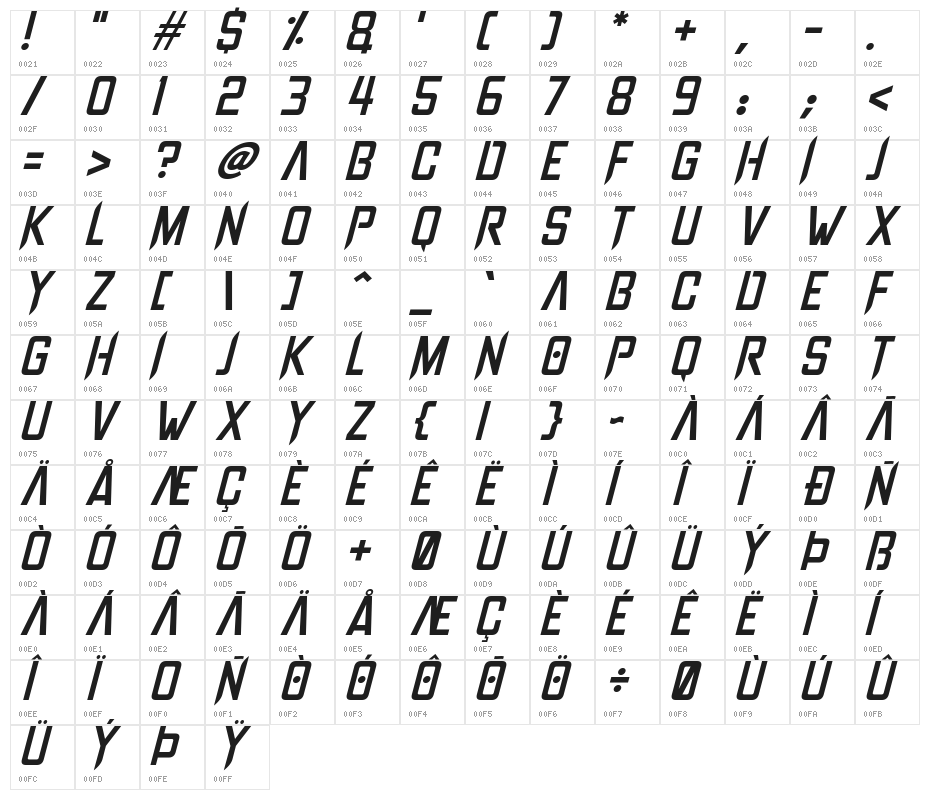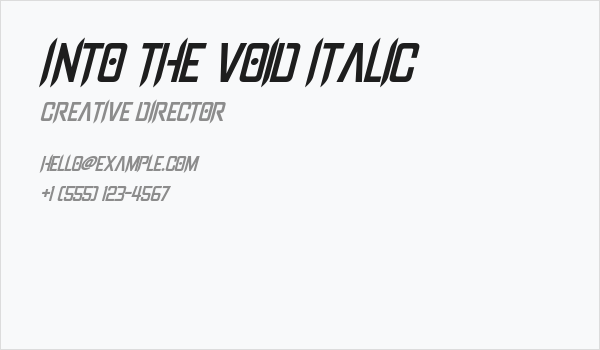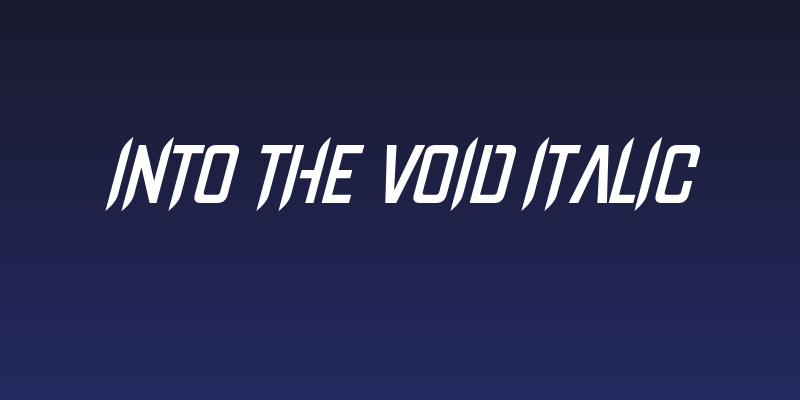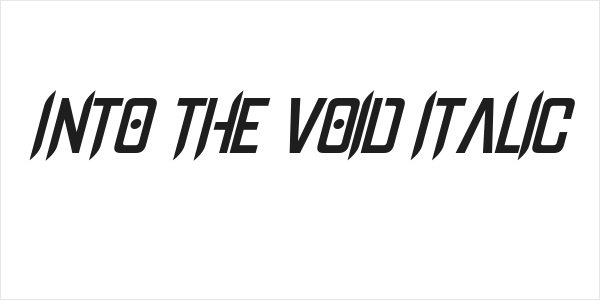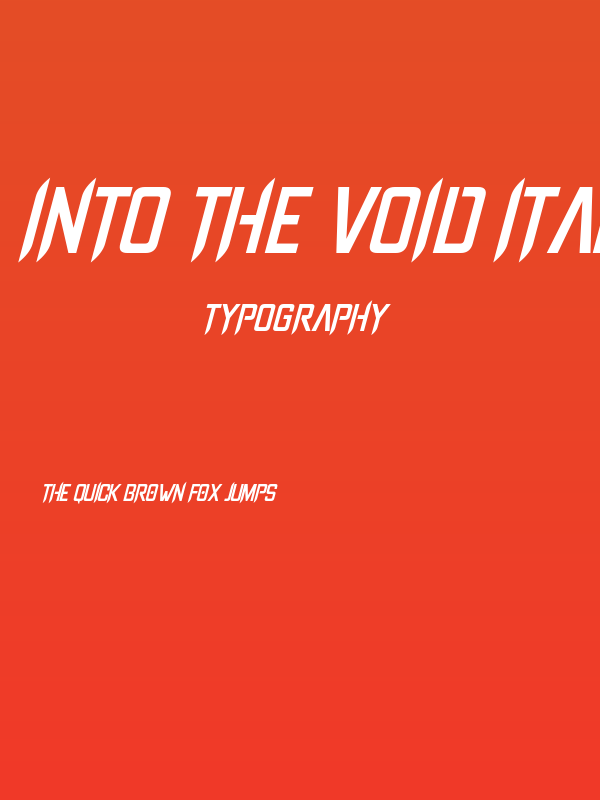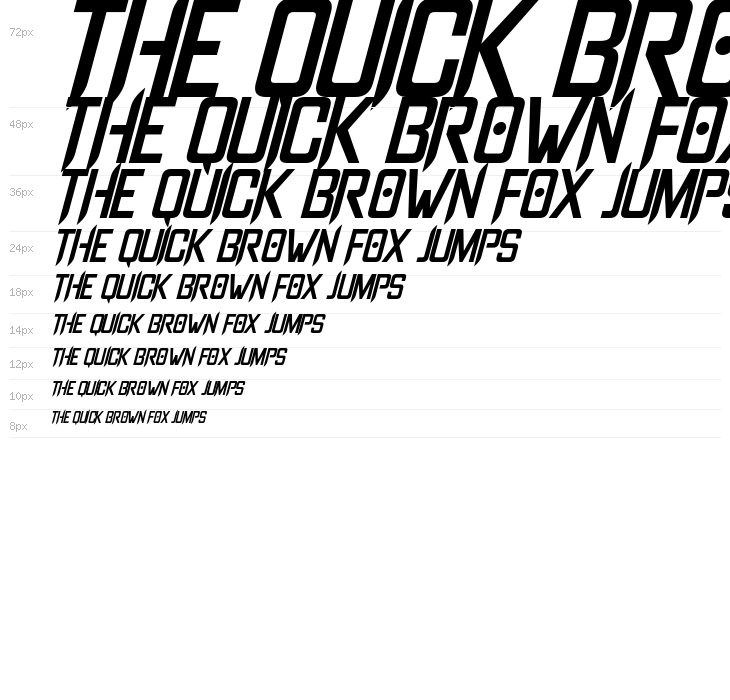
Into The Void Italic Font
Into The Void Italic Description
This font features a dynamic and futuristic design, characterized by its sharp angles and italicized form. The letters are elongated with a forward-leaning stance, giving a sense of motion and speed. The strokes are bold and consistent, with a medium contrast that enhances readability while maintaining a sleek appearance. The overall style is modern and edgy, suitable for projects that require a contemporary and energetic look. The spacing between characters is tight, which contributes to its compact and streamlined aesthetic.
| Proposed Projects | Ideal for use in technology branding, sports team logos, video game titles, and sci-fi movie posters. |